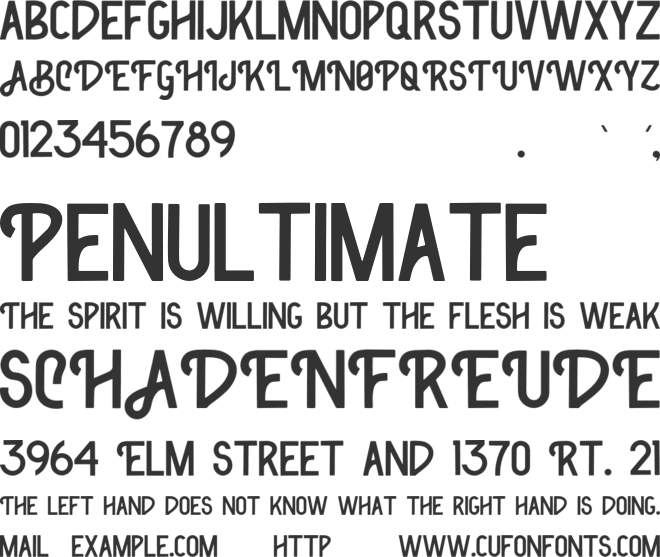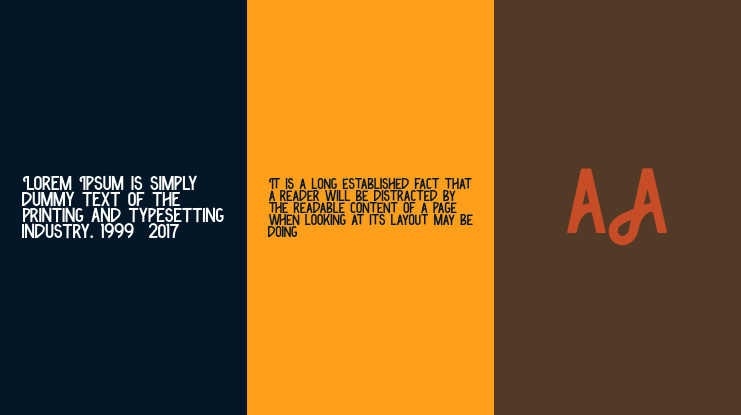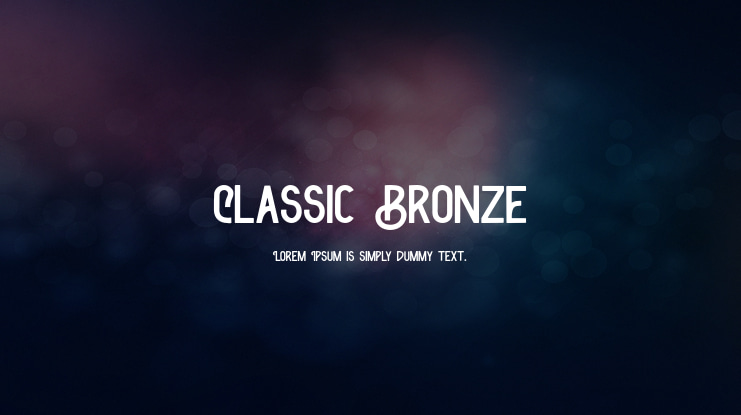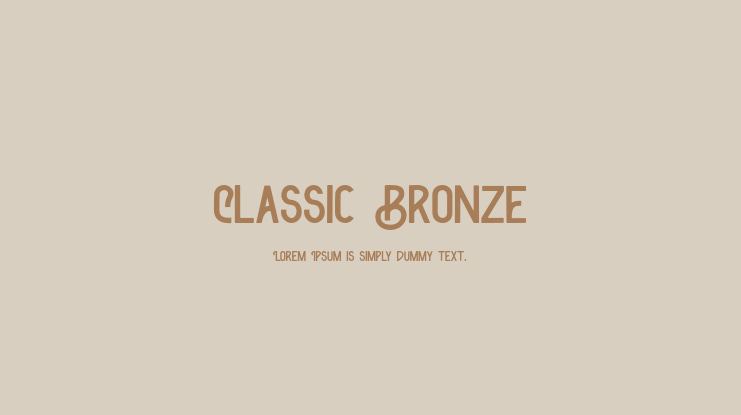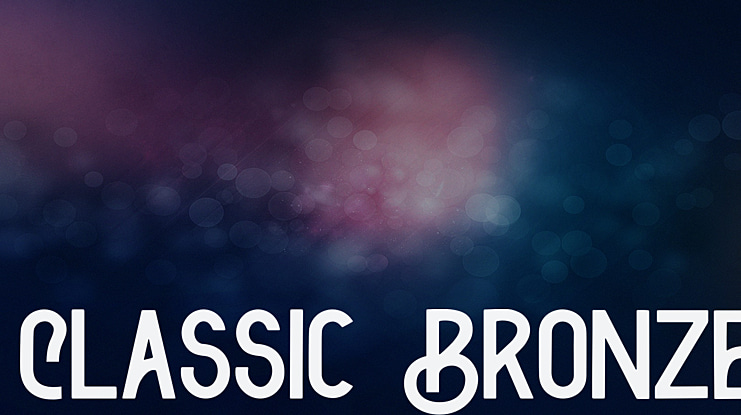
Classic Bronze Font
Classic Bronze font is classic sans serif font with many beautiful alternate characters make this font look Elegant & stylist. It contains an uppercase alphabet with numbers and symbols. Designed with Stylistic Alternates in some characters that allows you to mix and match pairs of letters to fit your design. Perfect for many different projects: logo, fashion, quotes, blog header, poster, wedding, branding, apparel, letter, invitation, stationery, etc